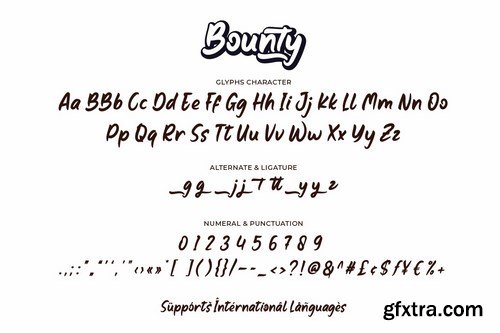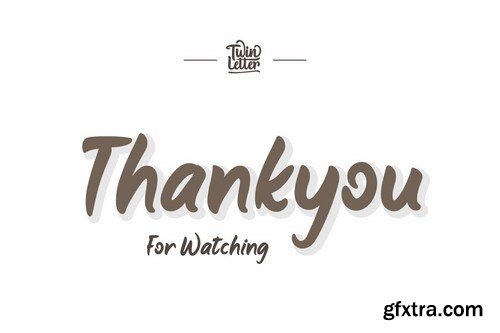
Bounty an elegant handwritten font This font appears lovely in the text and title of your outstanding design project because it was made with a relaxed, yet attractive and graceful touch of a hand.